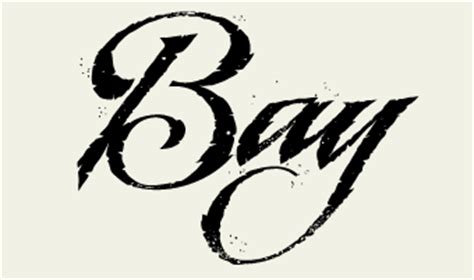
Black Rose Script Font Free Download - Instant Download - Bridal Shower Advice Cards - Advice for ... - Black rose will look outstanding in any context, whether it's being used on busy backgrounds or as a standalone headline!. Black rose font free by bright ideas | font squirrel. Black rose curly, display, halloween, scary, script font free download. Black rose font by billy argel free download. Black rose script font this font is partial and free for personal use. Dear visitor, you went to the site as unregistered user.
Black rose script 1.5 by chuck davis, patrick kalange & denise bayers.
Black rose will look outstanding in any context, whether it's being used on busy backgrounds or as a standalone headline! 627,958 downloads (34 yesterday) 39 comments. Black rose is a sweet, round lettered handwritten font. October 6, 2019 by free fonts leave a comment. Black rose font by billy argel free download.
Commercial licenses and complete set available @ billyargel.com more info contact free fonts, fonts, download free fonts, font lot. 627,958 downloads (34 yesterday) 39 comments. Check font license and view font details, character map upon downloading this font the user bound to abide the free font terms of use/free font end user license agreement (tou/eula) defined below. October 6, 2019 by free fonts leave a comment. Big john / slim joe font.
Designed to be versatile, can take center stage or be used to beautifully complement your favorite sans and serif this is the demo version. Looking for rose script fonts? Its flowing and distinct style makes this font incredibly fitting to a wide pool of projects. 627,958 downloads (34 yesterday) 39 comments. It is designed by sinikka li, this is a premium font, are sold on creativemarket, but it was great, it is free today for download.roses, please! is a handwritten signature typeface that comes in two different versions. This beautiful script is loaded with features, such as automatic ligatures, discretionary ligatures, bonus ending characters, swashes, and several alternates (302 glyphs to be. This font was comressed in a zip archive for your convenience. ✓ click to find the best 8 free fonts in the rose script style.
Commercial licenses and complete set available @ billyargel.com more info contact free fonts, fonts, download free fonts, font lot. Home › script › brush › roses, please! They are organized into highly regular formal types similar to cursive writing and looser, more casual scripts. Nearly 2 years in the making, lhf black rose script is the perfect blend you receive 3 versatile fonts to match different moods: Big john / slim joe font. Black rose.ttf(.otf) for windows and mac. You may need to extract the.ttf files from a.zip archive file before installing the font. Designed to be versatile, can take center stage or be used to beautifully complement your favorite sans and serif this is the demo version. We collect and share best free fonts from the web. Added on monday, august 8, 2011 119,953 downloads designed by bright ideas. Black rose is a sweet, round lettered handwritten font. We encourage you to create a free account and login. Instant downloads for 1 free rose, script, rose font download fonts.